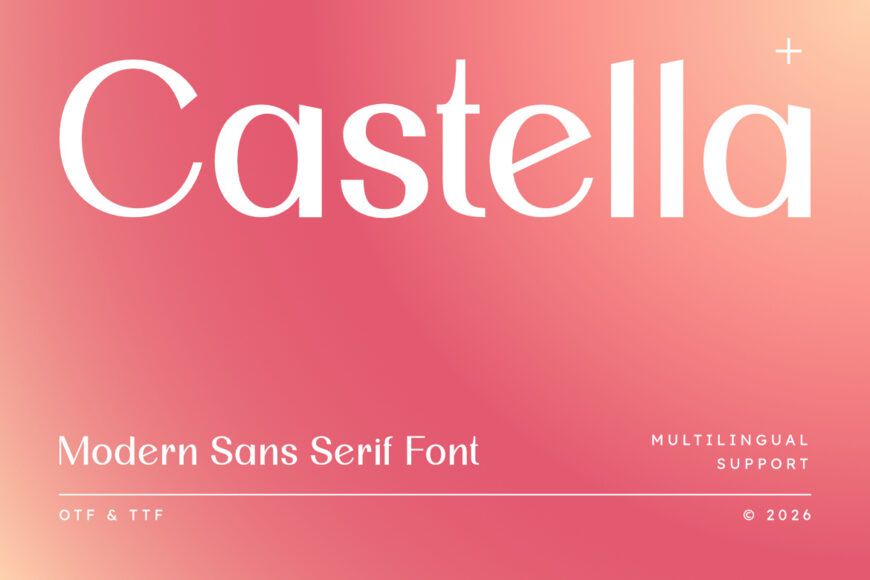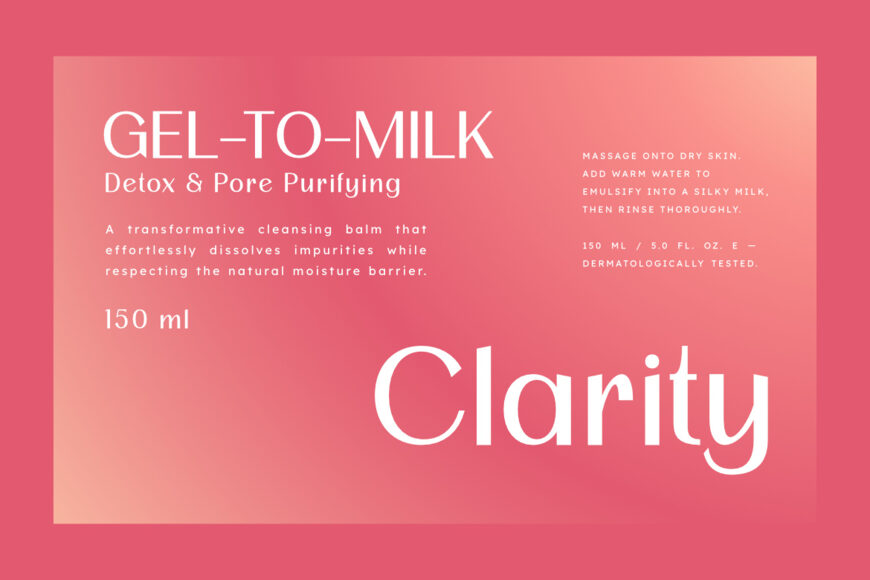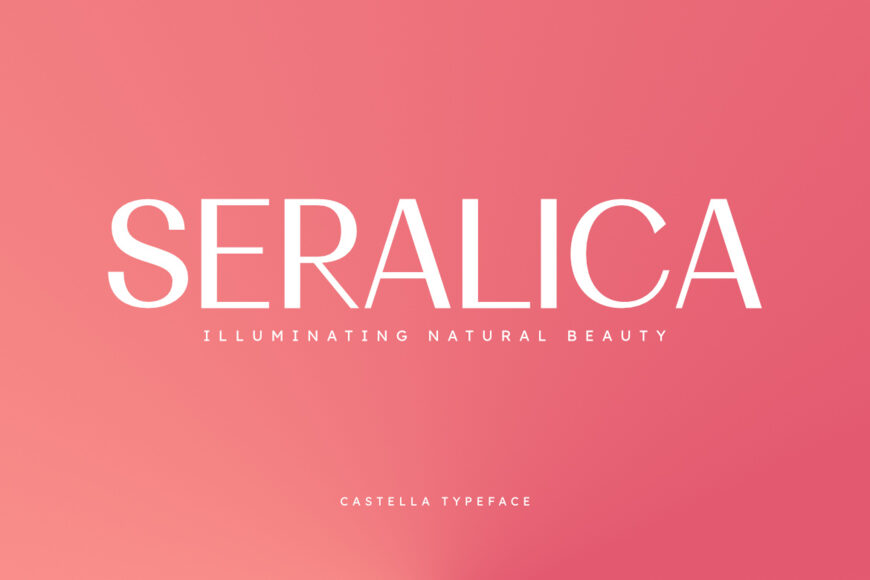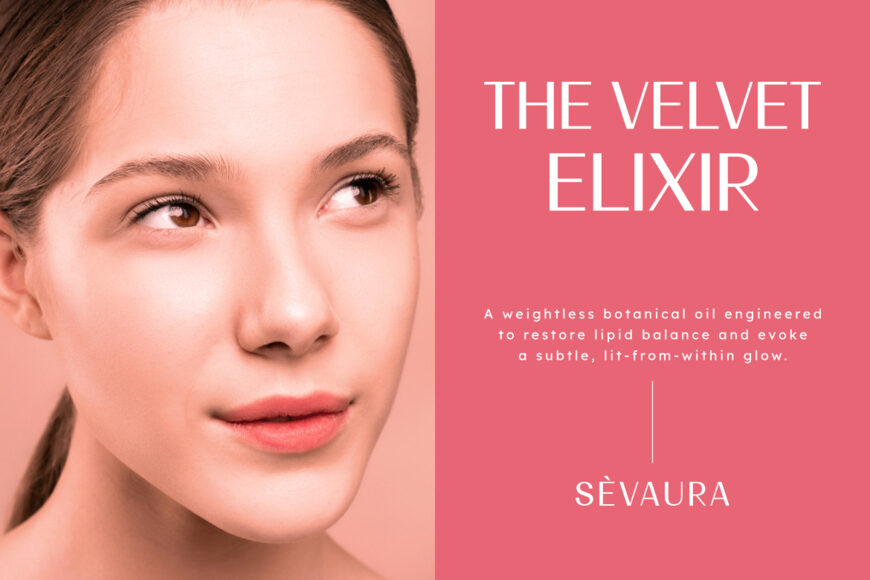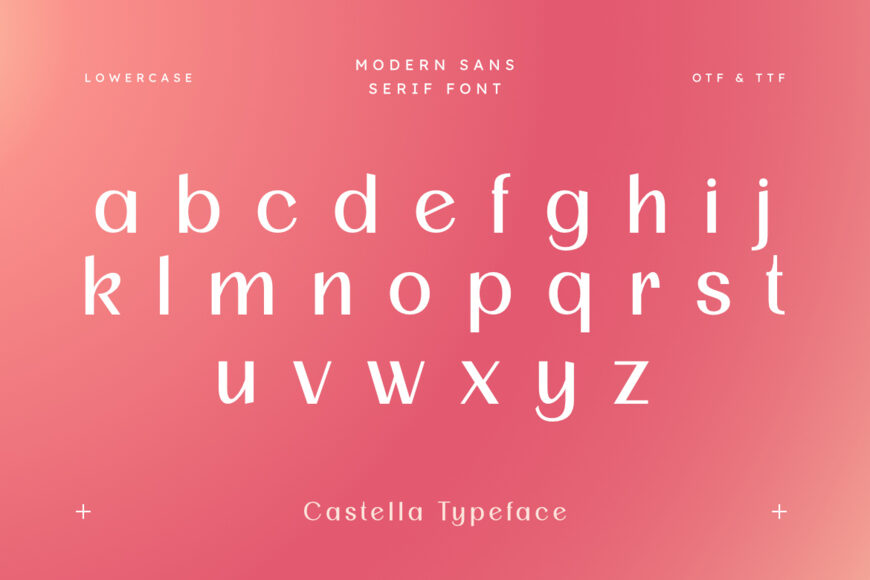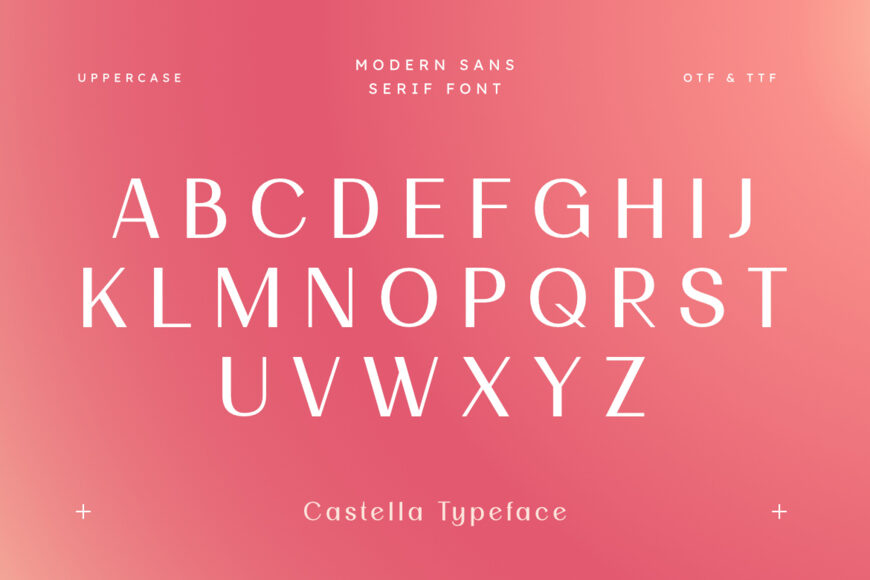
Castella is a refined modern sans serif designed to bring timeless elegance and a polished, professional feel to creative work. With balanced letterforms, clean lines, and a minimalist structure, it offers exceptional versatility for luxury branding and editorial design. Its sleek, impactful style creates a graceful flow, expressing contemporary simplicity with sophisticated character.
Castella is an excellent choice for premium startups, corporate materials, lifestyle, fashion, and beauty brands. Use it for logos, luxury packaging, websites, promotional campaigns, and other high-end projects that require a distinctive, professional finish.